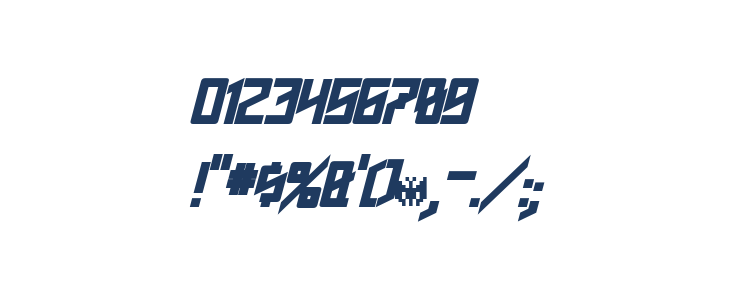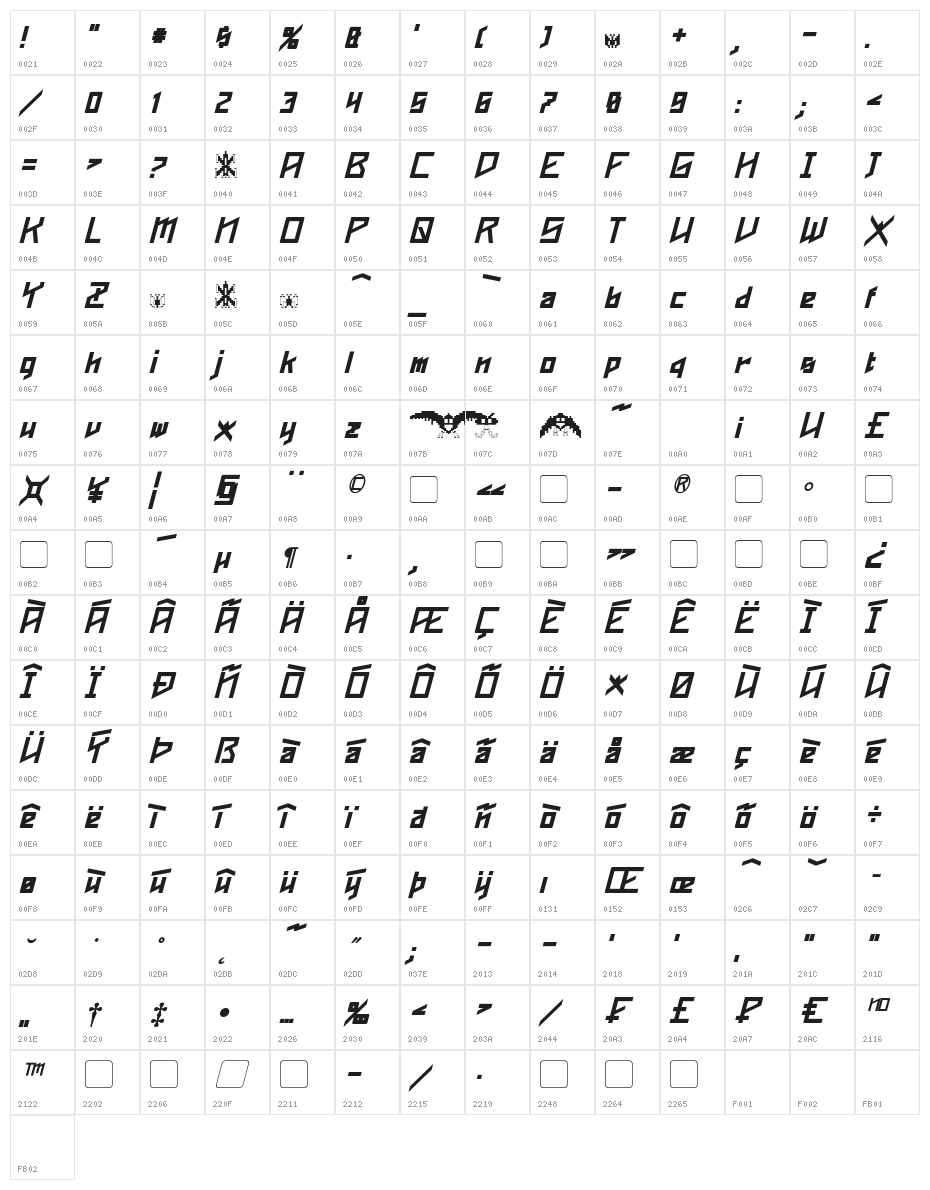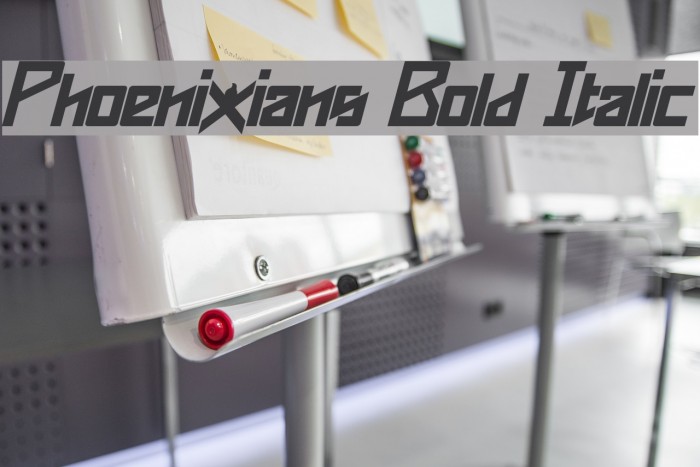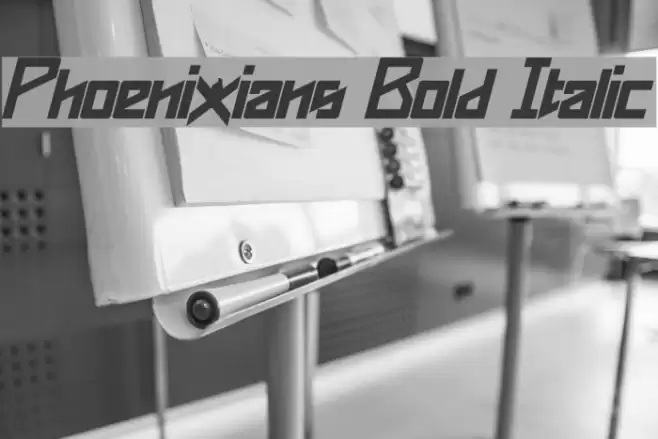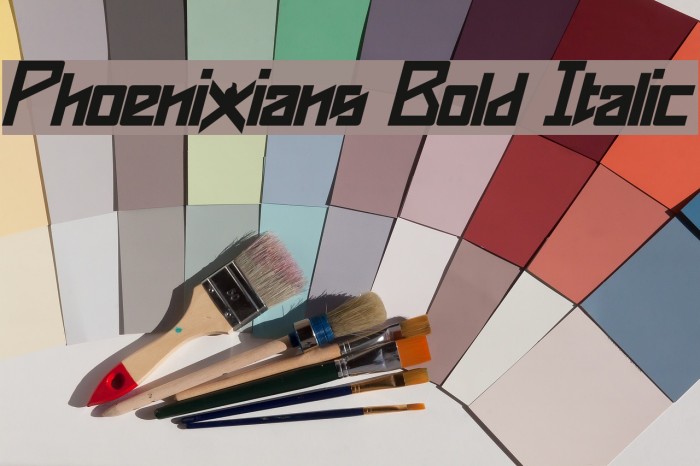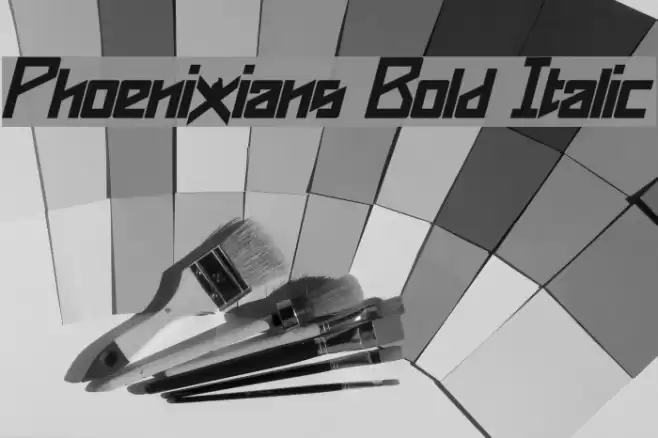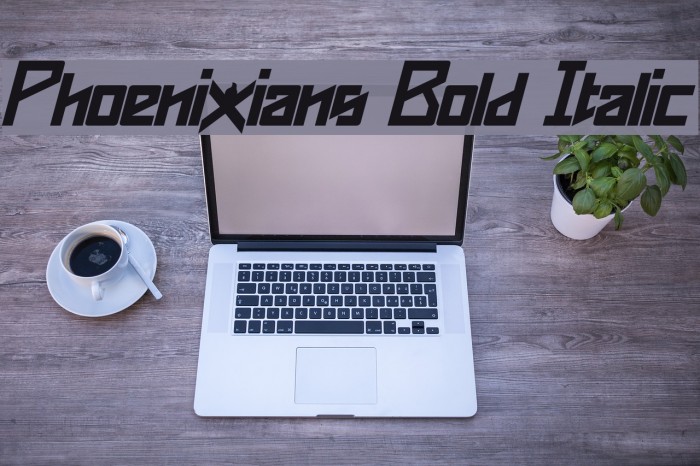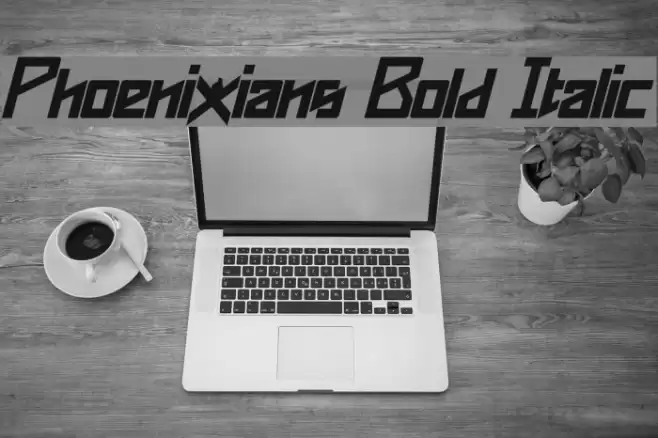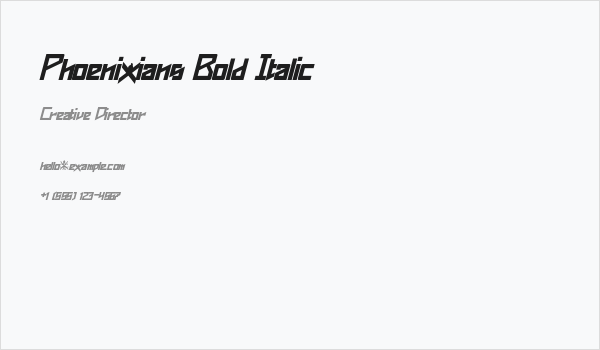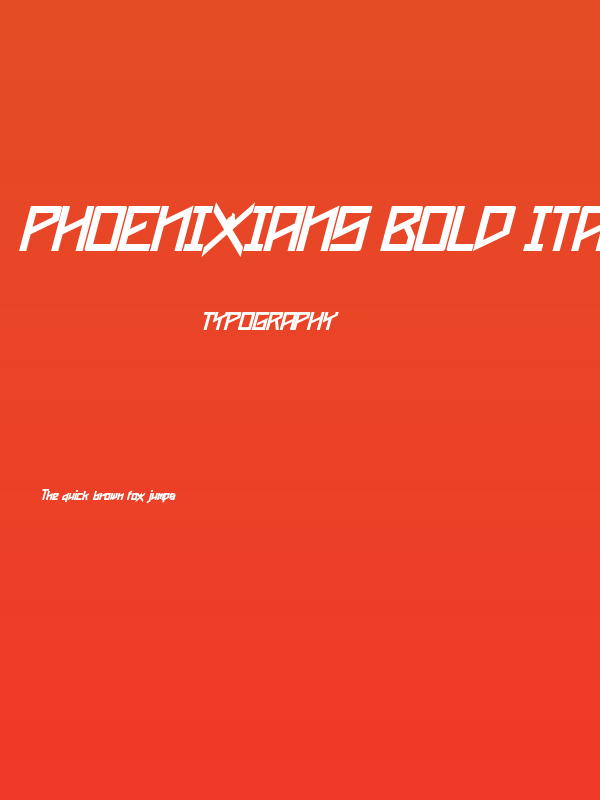
Phoenixians Bold Italic Font
Phoenixians Bold Italic Description
This font features a bold and italicized style with sharp, angular lines and a futuristic aesthetic. The uppercase and lowercase letters are designed with a consistent slant, giving a dynamic and energetic appearance. The numbers and special characters follow the same angular theme, making the font suitable for attention-grabbing designs. The overall look is modern and edgy, with a unique flair that stands out in any project.
| Proposed Projects | Ideal for sci-fi themed posters, video game graphics, and edgy branding materials. |